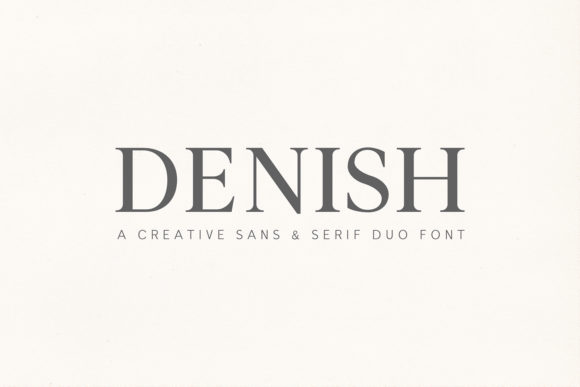
Behold Denish Font, a striking and elegant duo that captures the essence of modern sophistication. Its delicate serifs and clean lines exude an air of timeless charm, while its sans serif counterpart embodies a sleek and contemporary flair. Created by the renowned Creative Tacos, Denish Font is a versatile masterpiece that will transform your designs into works of art.
Unleash your creativity with Denish Font's extensive character set, featuring uppercase and lowercase letters, numerals, punctuation, and a selection of international characters. Express yourself freely with a font that effortlessly adapts to your unique vision.
Immerse yourself in the world of Denish Font, where classic elegance meets contemporary style. Its serif and sans serif versions offer endless possibilities, allowing you to craft designs that are both visually captivating and effortlessly readable. Experiment with different combinations to create harmonious and impactful layouts that leave a lasting impression.
Step into the spotlight with Denish Font, the font that elevates your designs to new heights. Its refined curves and sharp angles command attention, making your words shine brighter than ever before. Whether you're crafting logos, branding materials, website designs, or social media graphics, Denish Font ensures that your message will be delivered with impact and style.
Embrace the beauty of Denish Font and watch your designs blossom into masterpieces. Its versatility knows no bounds, making it the perfect choice for a wide range of creative projects. From invitations and greeting cards to posters and flyers, Denish Font adds a touch of sophistication and elegance that will leave a lasting impression.
Join the creative revolution with Denish Font, the font that ignites your imagination and empowers you to create designs that captivate and inspire. Its timeless appeal and modern edge will transform your projects into works of art, leaving your audience spellbound.